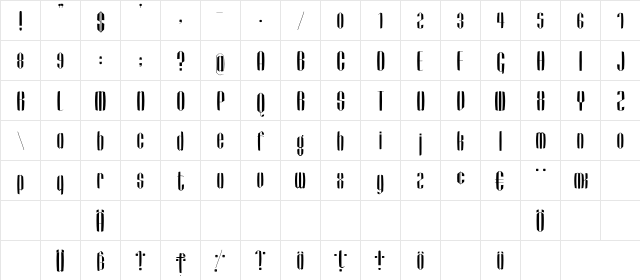
FSFunkturm Regular
Design Context for FSFunkturm Typeface
FSFunkturm trades formality for fun, with bouncy, characterful letterforms that bring warmth and energy to any project.
Font Pairing: Pairs well with a rounded or humanist sans for body copy, maintaining the friendly tone without relying on FSFunkturm to carry extended reading.
Pro Tip: Avoid using FSFunkturm for long passages of text — it works best for headlines, labels, and short calls to action.